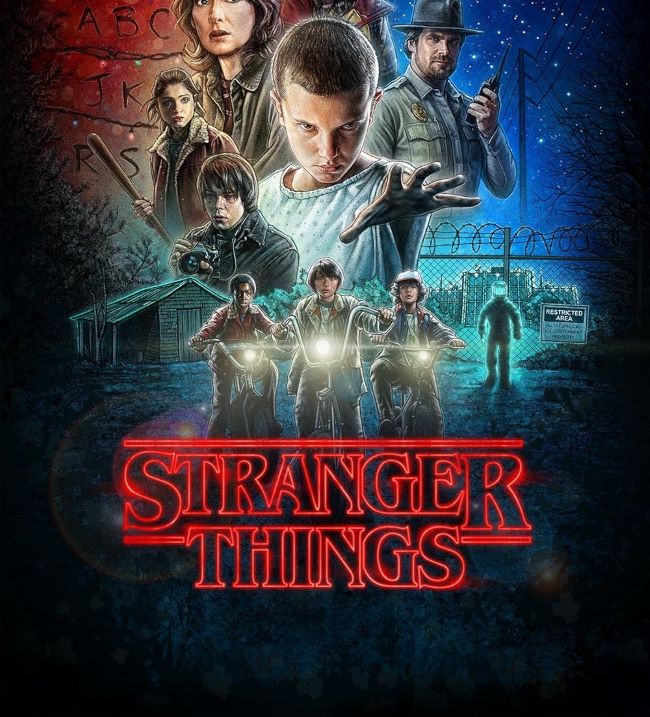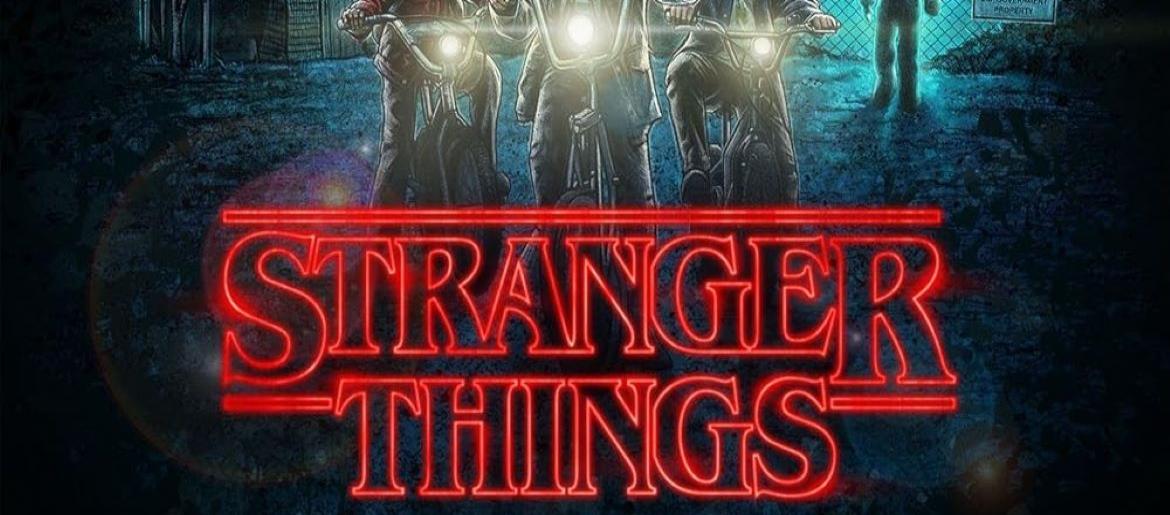
Stranger Things Font
The Stranger Things Font instantly evokes the retro, eerie atmosphere that defines the series. Its bold serif style, inspired by classic 1980s book covers and horror posters, captures the perfect mix of nostalgia and suspense. The original title uses ITC Benguiat Bold Condensed, a dramatic, tightly spaced typeface that adds mystery and tension—ideal for a story filled with supernatural twists and secret experiments.
Designers love this look for projects that need a vintage, dramatic, or supernatural feel. Its sharp serifs and cinematic spacing immediately set a tone of intrigue and nostalgia.
About Stranger Things
Debuting in 2016, Stranger Things follows a group of kids in Hawkins as they face terrifying forces from the Upside Down. Mixing horror, adventure, and heartfelt friendships, the show became a global cultural icon and a defining series of the decade.